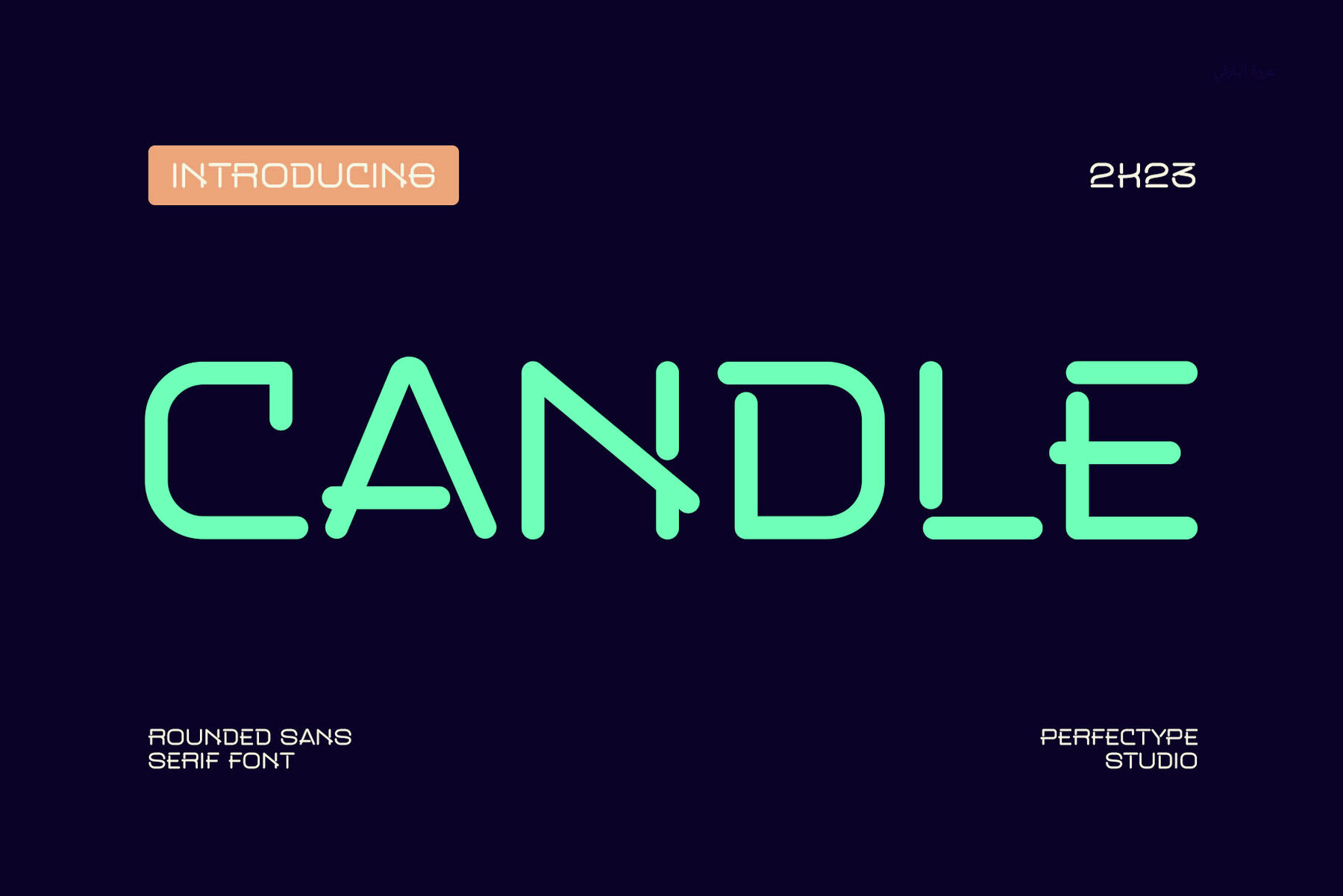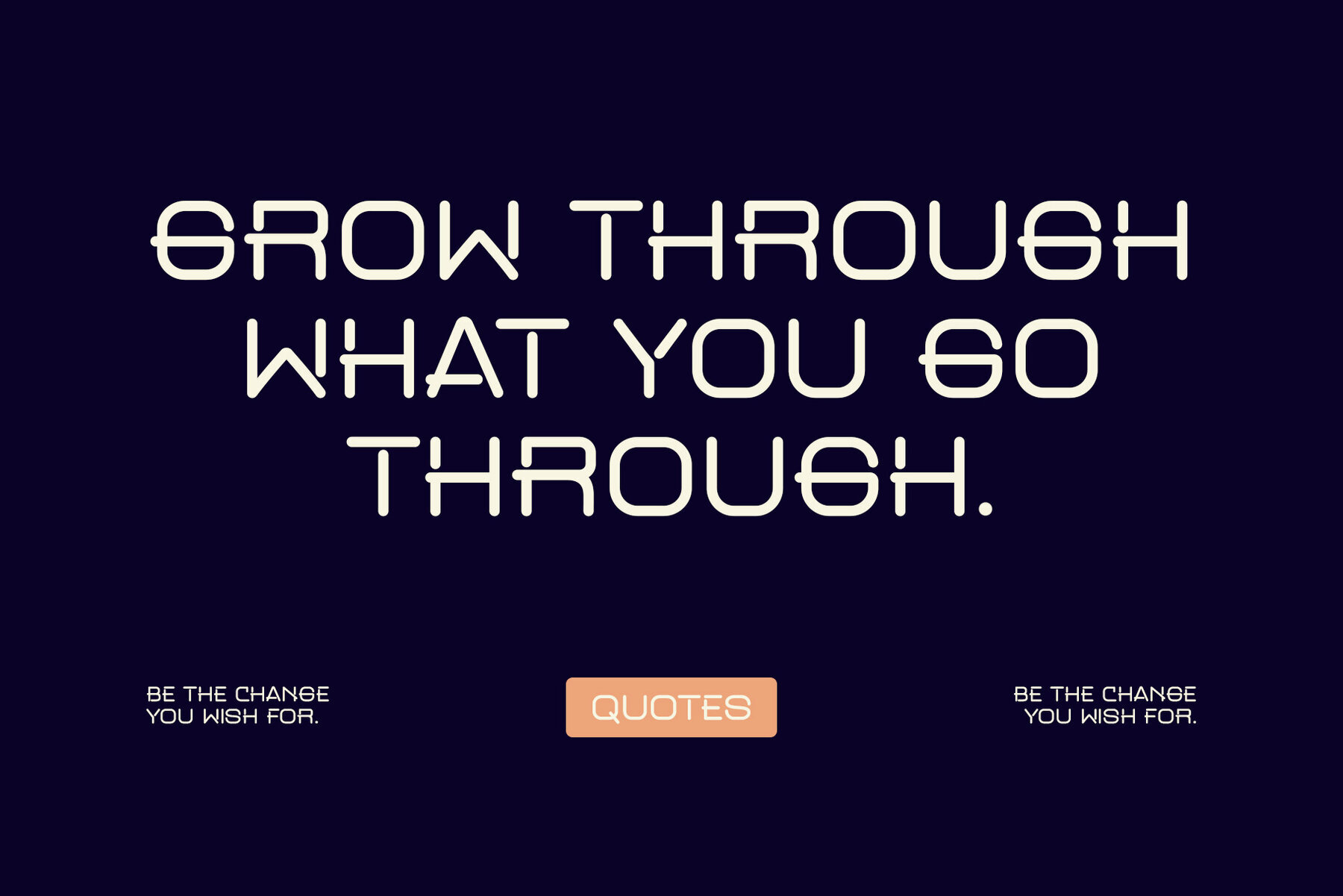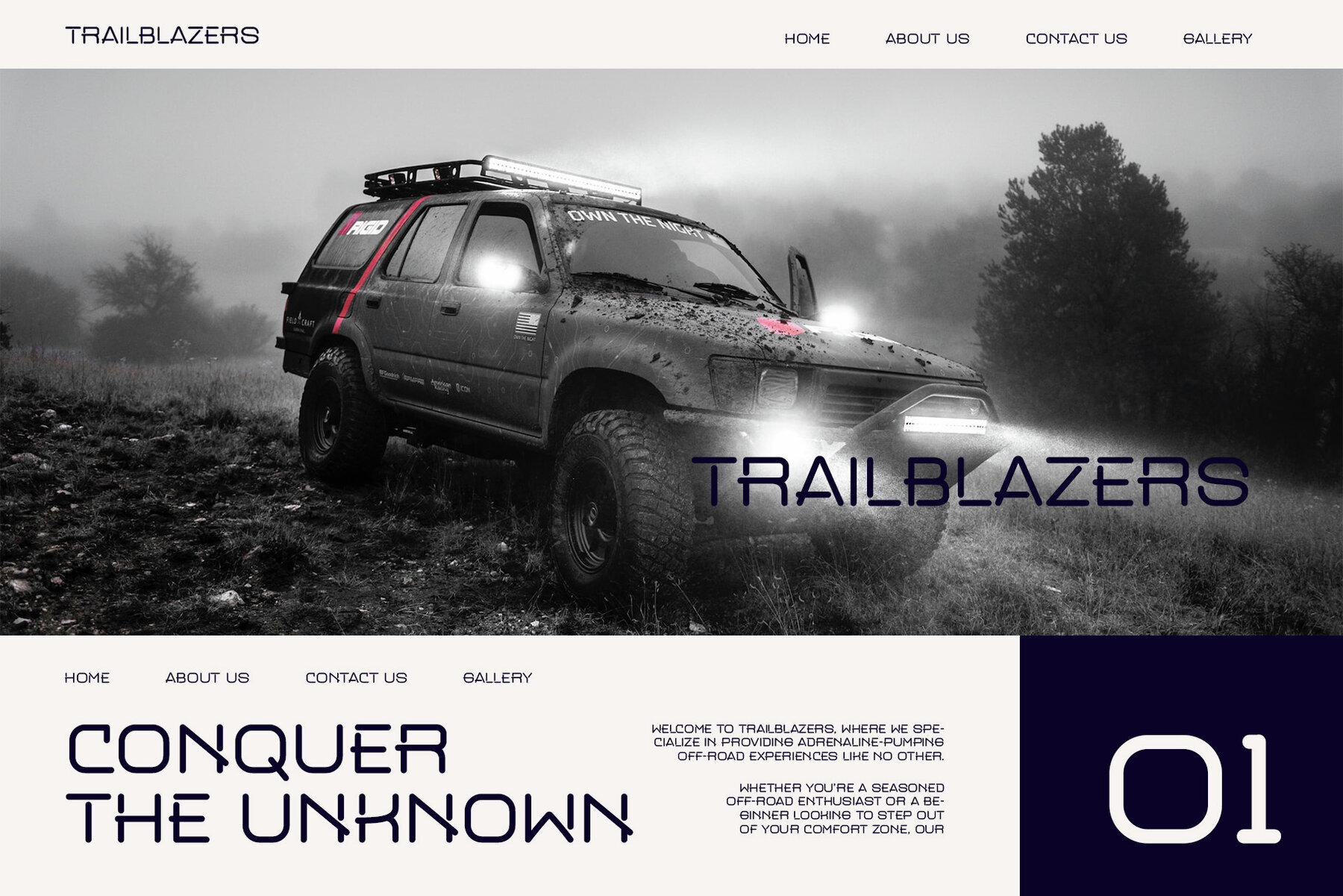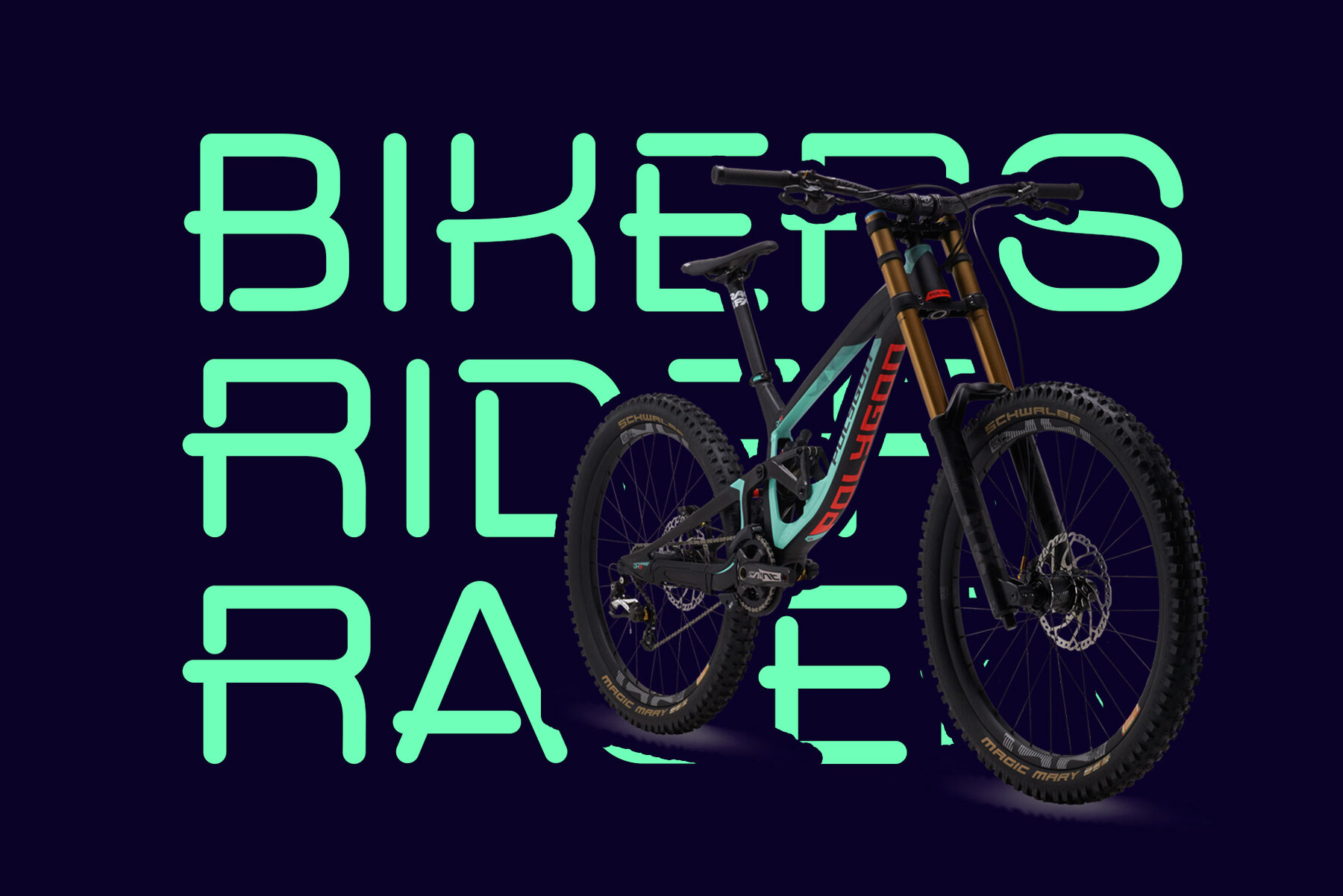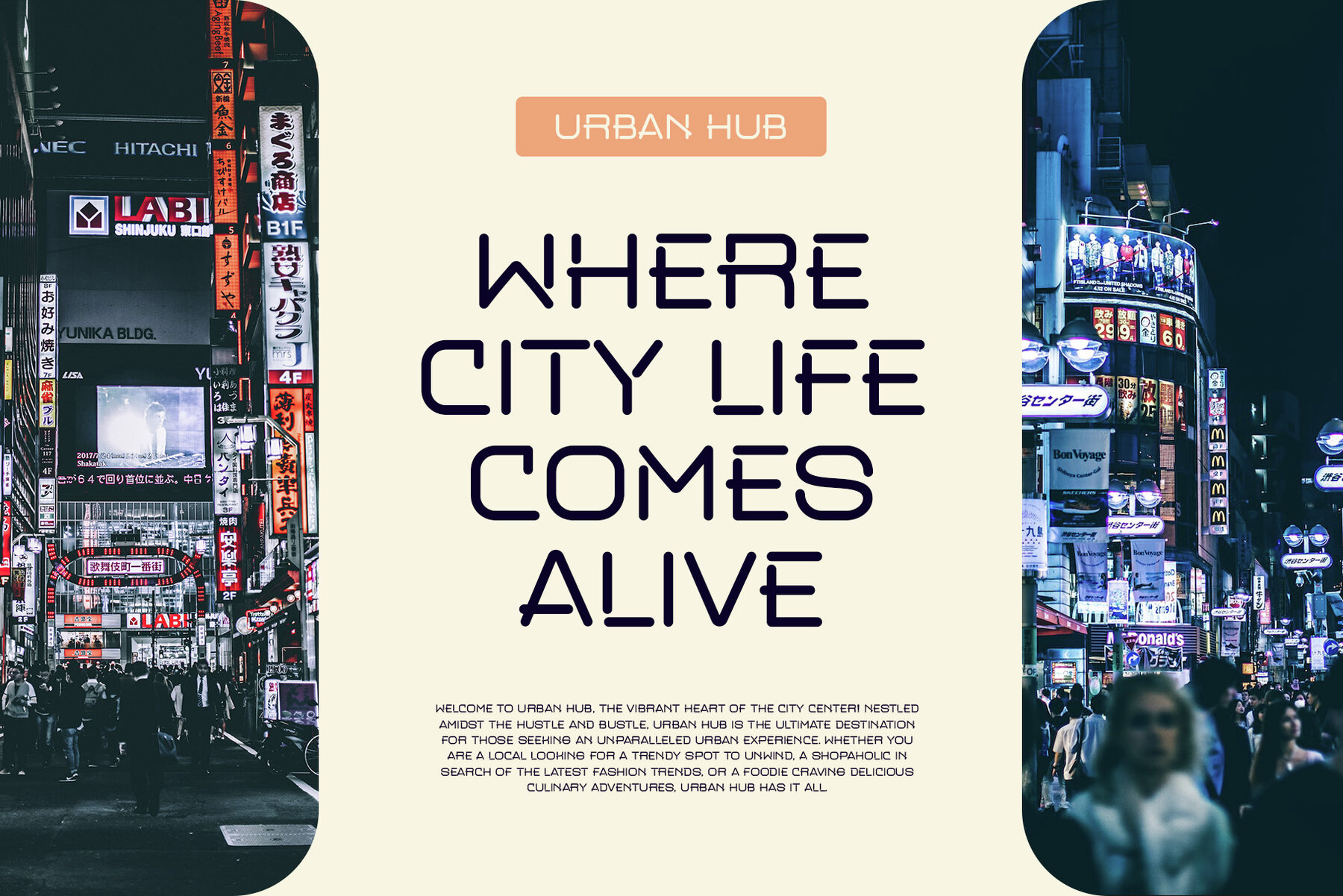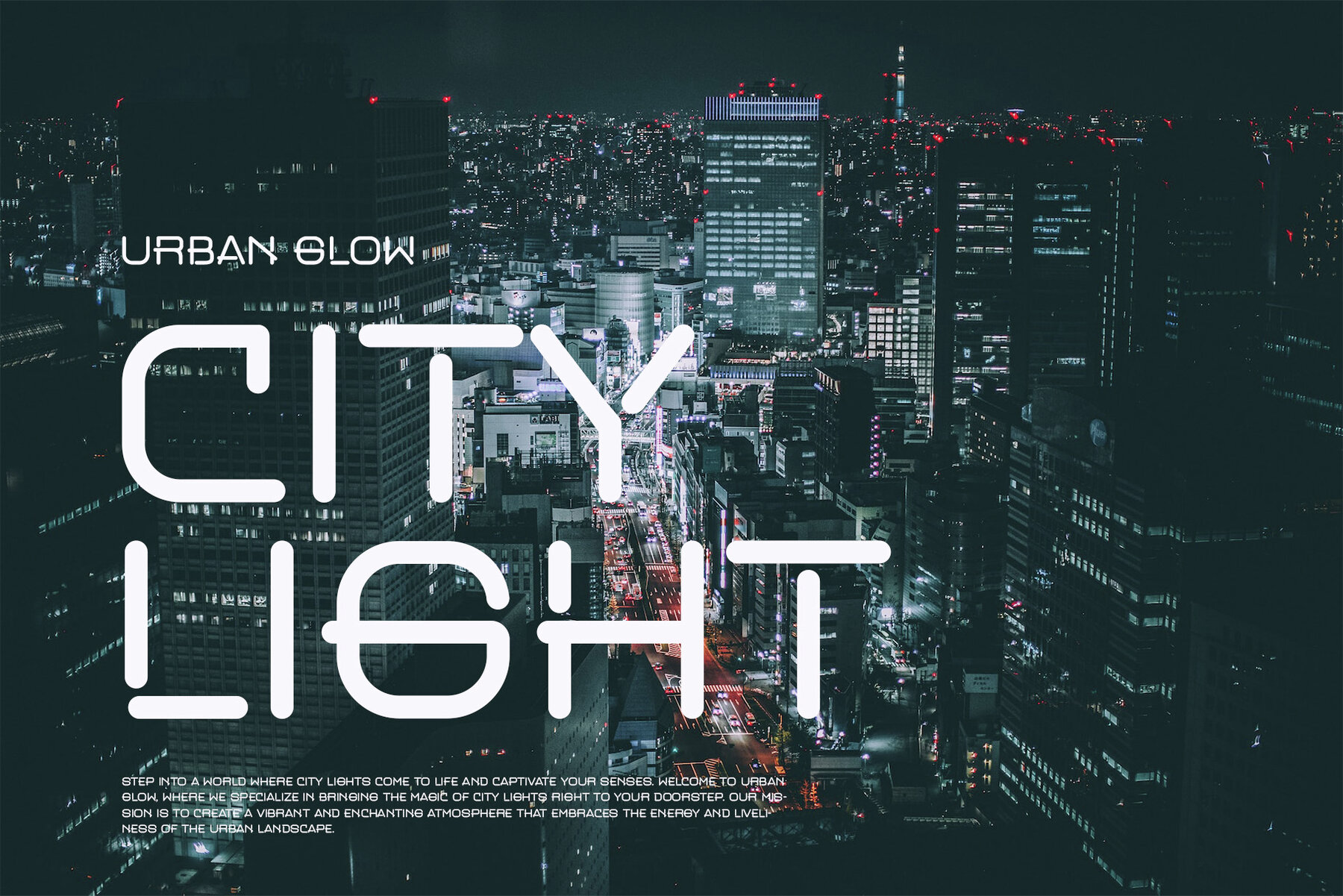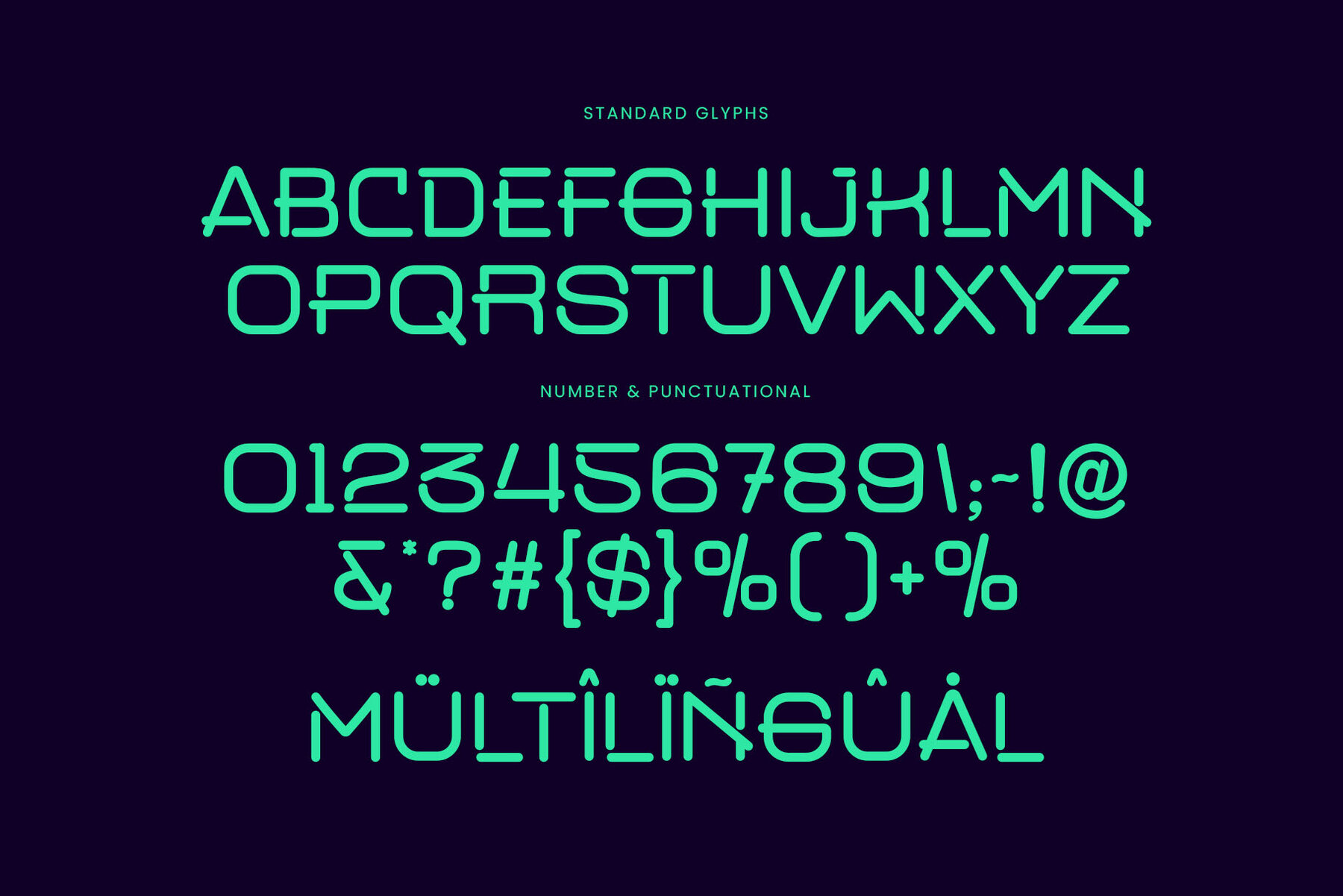
Candle Font
Candle Regular
This is a sans serif font. This font was created with balance and high readability. In making it, we prioritize neatness and a detailed philosophy, so that this font is good to use for all your branding needs. This font is intended for any graphic design purposes such as brochures, videos, advertising brands, logos, magazines, layout designs, posters, post templates, games, and others. What's Included: Using Adobe Illustrator or Adobe Photoshop is recommended. Hope you enjoy our fonts and if you have any questions, feel free to send me a message & I'll be happy to help :)